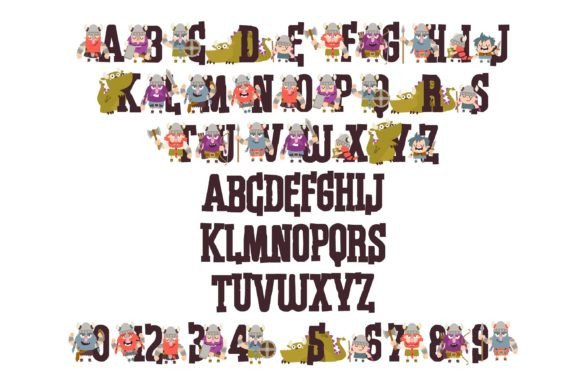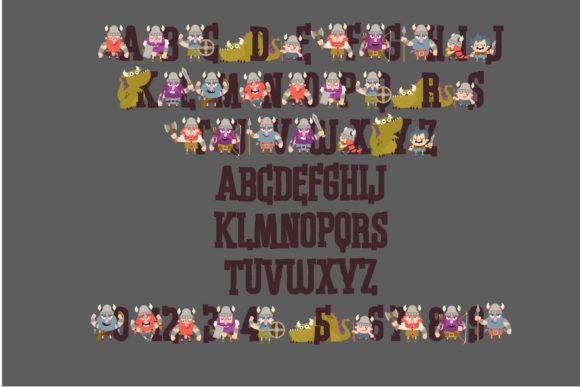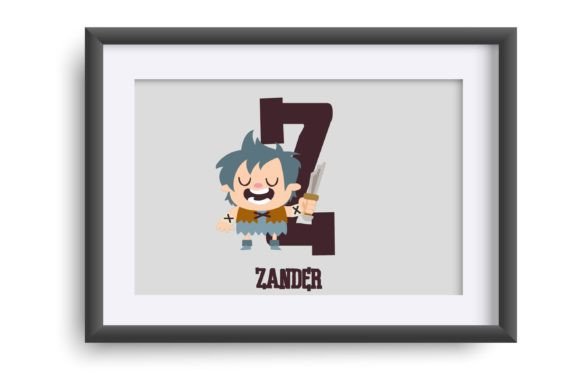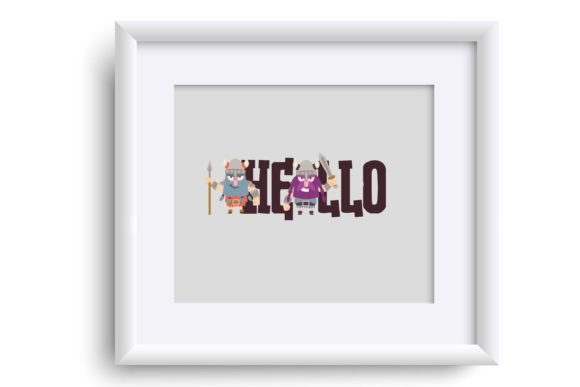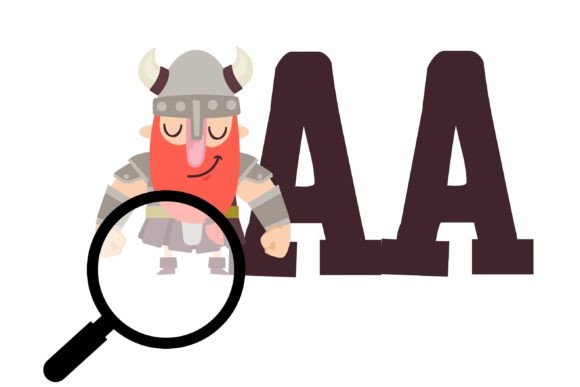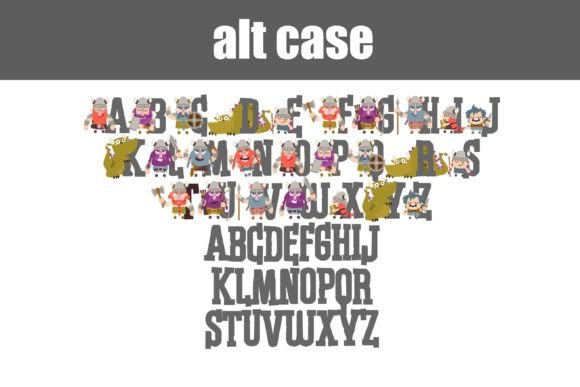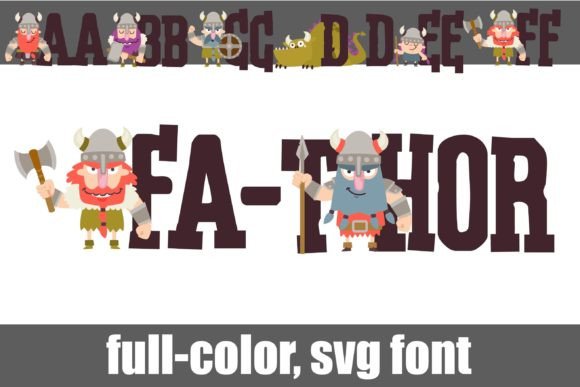
Unleash Your Creativity with Fa-thor Font: A Viking-Inspired Masterpiece
Are you a designer, crafter, or DIY enthusiast looking for a unique and eye-catching font to elevate your projects? Look no further than Fa-thor Font, a stunning full-color font that combines blocky serif lettering with Viking men on the uppercase letters. In this article, we’ll dive into the features, benefits, and uses of Fa-thor Font, and explore how you can make the most of this incredible typographic treasure.
What is Fa-thor Font?
Fa-thor Font is a one-of-a-kind, PUA-encoded font that boasts a range of exciting features. The font comes with a standard version featuring blocky serif lettering, accompanied by an alternative version accessible through your system’s character map. This alt version offers additional colors for all letters, giving you even more creative freedom.
Key Features of Fa-thor Font
- Full-color font: Fa-thor Font is an OpenType full-color (SVG) font, allowing for vibrant, multi-colored text that’s sure to grab attention.
- Viking-inspired design: The uppercase letters feature intricate Viking men, adding a touch of Norse mythology to your designs.
- PUA encoded: The font is PUA (Private Use Area) encoded, making it easy to access all the amazing glyphs and ligatures.
- Alt version with additional colors: The alternative version offers even more colors to play with, accessible through your system’s character map.
Tips and Tricks for Using Fa-thor Font
- Mix and match colors: Use the alt version to create stunning multi-colored text effects.
- Experiment with ligatures: Take advantage of the font’s PUA encoding to access unique ligatures and glyphs.
- Pair with bold graphics: Combine Fa-thor Font with bold graphics or images for a striking visual effect.
Who Can Benefit from Fa-thor Font?
Fa-thor Font is a game-changing typographic treasure that’s sure to elevate your designs, crafts, and DIY projects. With its stunning Viking-inspired design, PUA encoding, and full-color capabilities, this font offers endless creative possibilities. Whether you’re a designer, crafter, or DIY enthusiast, Fa-thor Font is an essential addition to your font library.